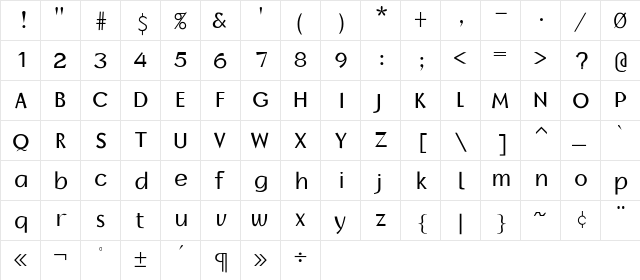
Granby Normal Regular Font Preview
Granby Normal Regular
Granby Normal Regular Font Details
Design Context for Granby Normal Typeface
Granby Normal is a composed and adaptable typeface that performs quietly and consistently across a wide range of design contexts.